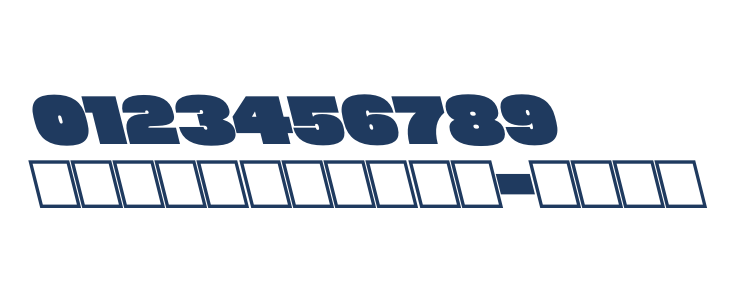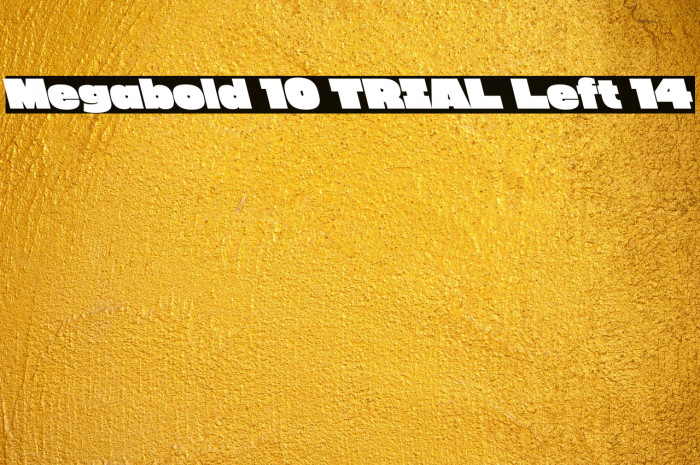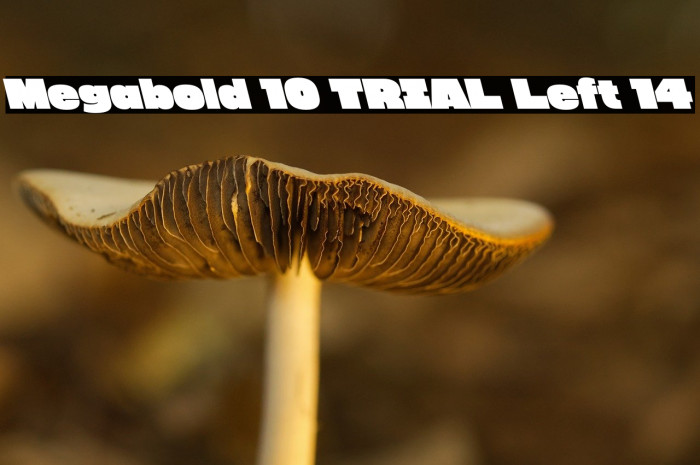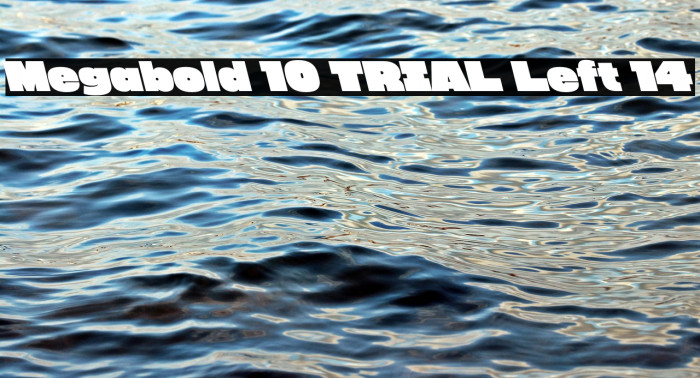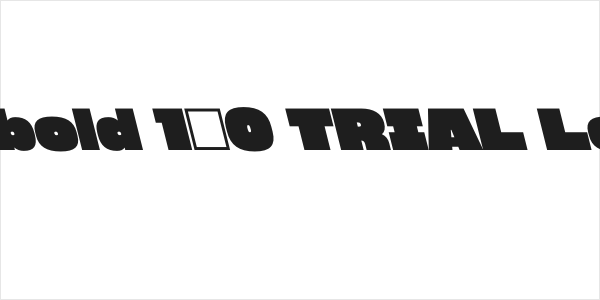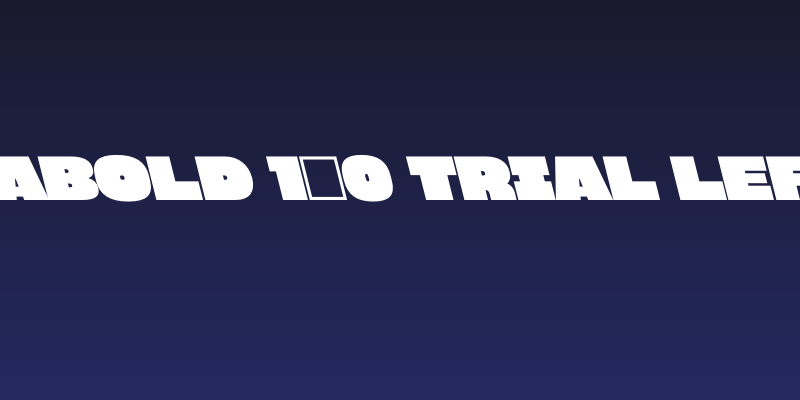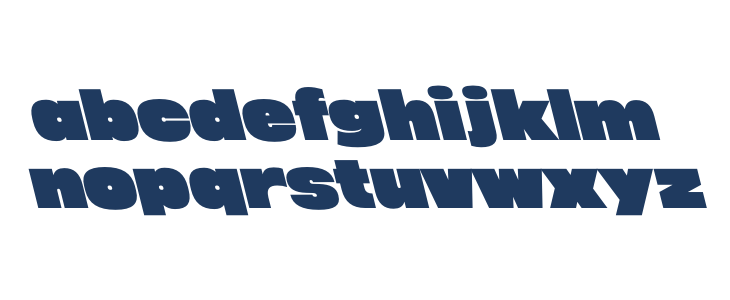
Megabold 1.0 TRIAL Left 14 Font
Megabold 1.0 TRIAL Left 14 Description
This font exhibits a bold and impactful style with a strong presence. The characters are heavily weighted, providing a sense of authority and confidence. The uppercase and lowercase letters maintain a consistent thickness, contributing to a cohesive and unified appearance. The numbers are equally bold, ensuring they stand out prominently. The special characters are designed to match the overall robust aesthetic, making them suitable for attention-grabbing designs. The font's solid structure and substantial weight make it ideal for projects that require a commanding visual impact.
| Proposed Projects | Ideal for headlines, posters, branding, and any design requiring a bold statement. |